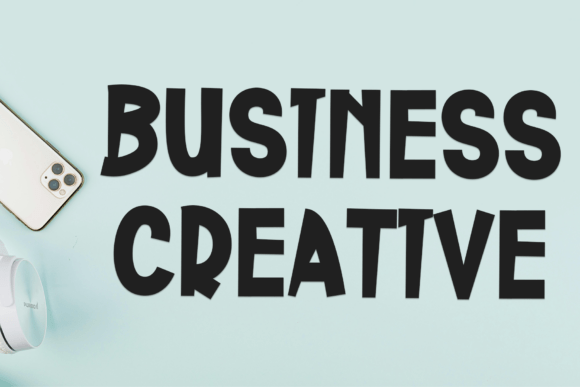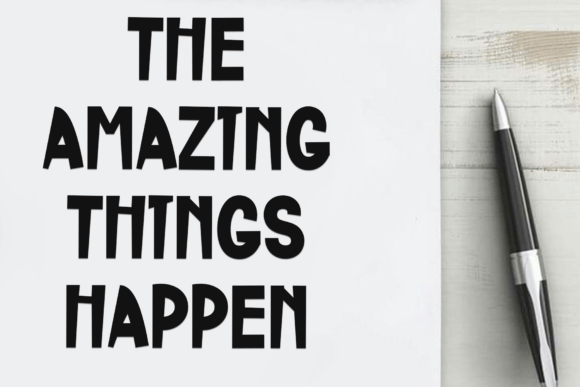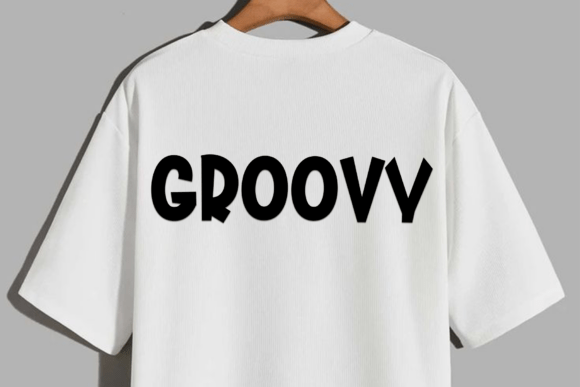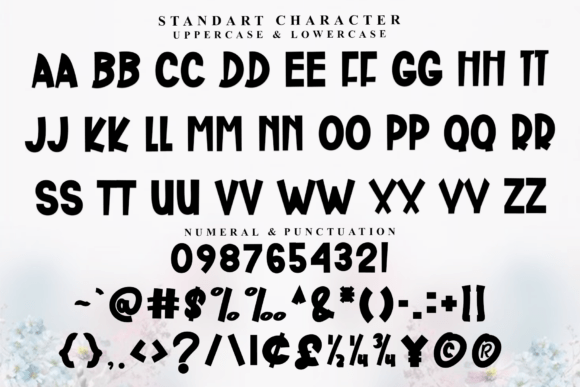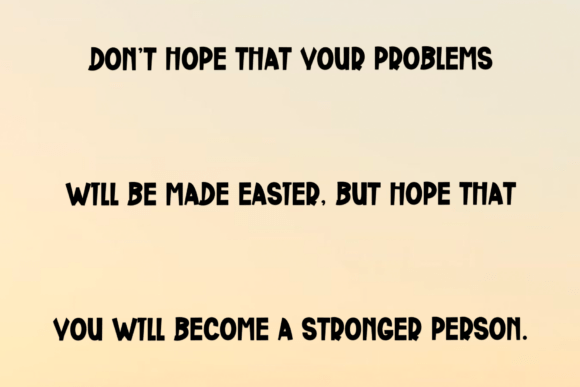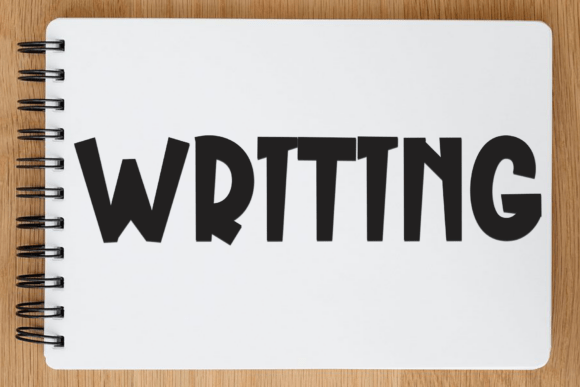
Introducing Book Vintage Font: Elevate Your Designs with a Unique Touch
Are you a designer, crafter, or creative looking for a font that adds a special character to your projects? Look no further than Book Vintage Font, a beautiful and eye-catching typeface designed with a soft, unique touch. In this article, we’ll explore the features and benefits of Book Vintage Font, and how it can elevate your designs and creative works.
The Distinctive Character of Book Vintage Font
Book Vintage Font is a carefully crafted font that boasts distinctive strokes, giving it a special character that sets it apart from other fonts. Its unique touch makes it perfect for designers and crafters who want to add a personal touch to their projects. Whether you’re working on a design project, craft, or other creative work, Book Vintage Font is sure to make it stand out.
Versatility and Compatibility
Ideal for Design Projects and Crafts
Book Vintage Font is perfect for designers and crafters who want to add a touch of elegance and sophistication to their projects. Its natural font style makes it ideal for a wide range of products, including:
- Design projects: Use Book Vintage Font to create stunning designs for brochures, posters, flyers, and more.
- Crafts: Add a personal touch to your crafts, such as handmade cards, gift tags, and scrapbooking.
- Creative works: Use Book Vintage Font to create unique and eye-catching titles, headings, and text for your creative projects.
Enhance Your Designs with Book Vintage Font
Book Vintage Font is designed to enhance your designs and make them appealing to a wide range of audiences. Its soft, unique touch and distinctive strokes make it perfect for:
- Artistic projects: Add a touch of elegance and sophistication to your artistic projects, such as paintings, illustrations, and digital art.
- Creative fields: Use Book Vintage Font to create stunning text and titles for your creative projects, such as photography, filmmaking, and writing.
Benefits of Using Book Vintage Font
By using Book Vintage Font, you can enjoy a range of benefits, including:
- Unique and eye-catching designs: Book Vintage Font adds a special character to your designs, making them stand out from the crowd.
- Versatility: Use Book Vintage Font for a wide range of projects, from design and crafts to other creative works.
- Elegance and sophistication: Add a touch of elegance and sophistication to your designs and creative projects.
In conclusion, Book Vintage Font is a beautiful and eye-catching font designed with a soft, unique touch. Its distinctive strokes give it a special character, making it meaningful and versatile for future use. With various characters and compatibility with various applications, Book Vintage Font is perfect for designers, crafters, and creatives who want to add a personal touch to their projects. Try Book Vintage Font today and elevate your designs to the next level!